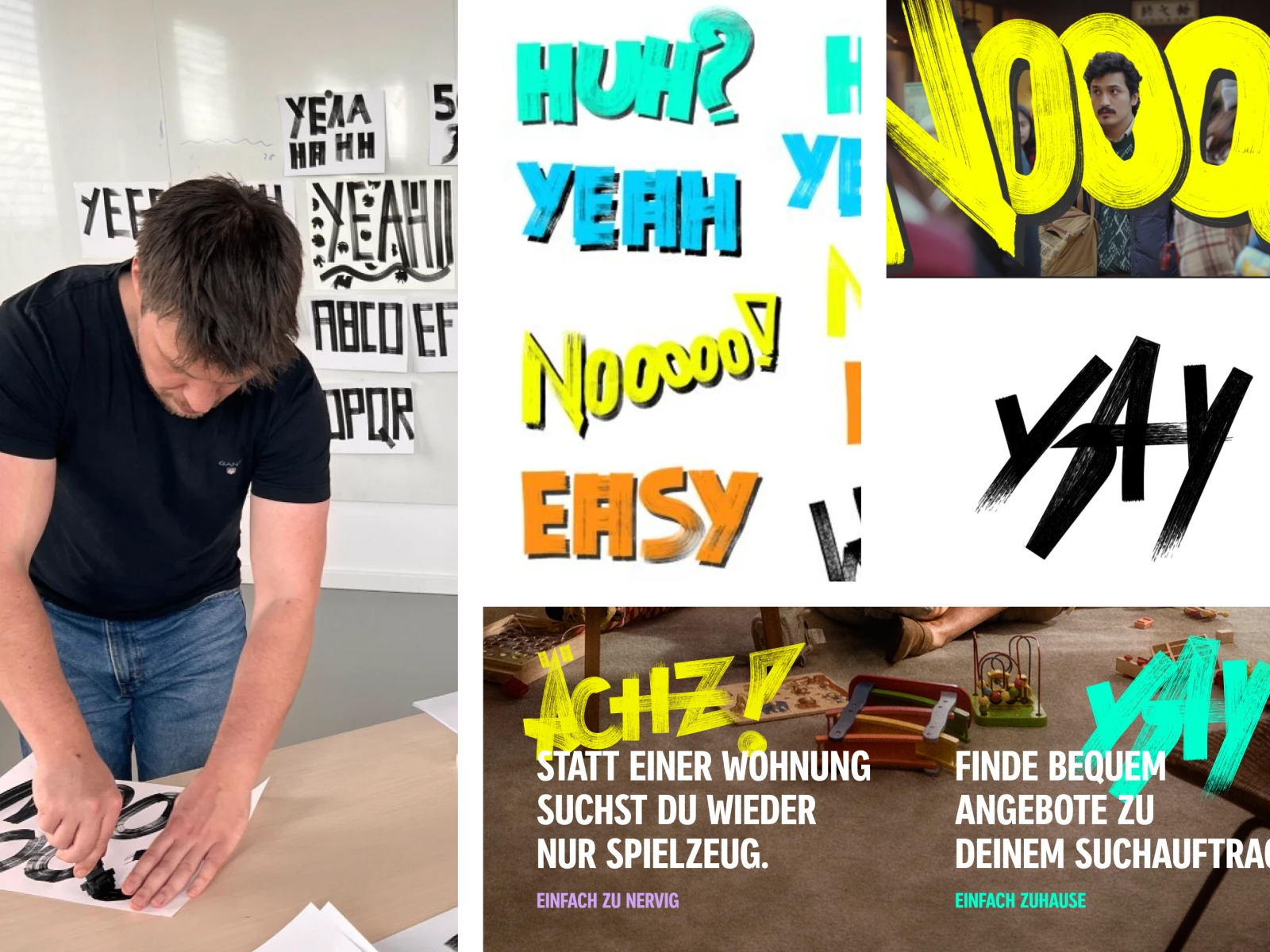
Brush font for campaign by Peter Sijtsma
Brush font for campaign
Created while working @ ImmoScout24
Brand campaign concept by: David + Martin
Collaboration: In partnership with David + Martin
Stakeholders: Brand Studio, Creative Studio, Marketing, Social Media, External Agency (David + Martin)
Role: Lead Designer & Art Director for font creation within ImmoScout24
Objective: Develop a hand-drawn font to be used across digital campaigns, with flexibility for animation in campaign videos.
Process:
Sourced appropriate materials: paper, ink, and brushes.
Sketched the required wordings, exploring a variety of autonomous styles.
Selected the optimal brush tools for the project.
Digitized the hand-drawn elements, converting them into vector format.
Delivered the finalized digital wordings to David + Martin for integration.
Concept: Collaborated on direction by reviewing david+martin prototypes, ensuring alignment with user experience goals.
Design:
Maintained visual consistency throughout the process.
Integrated campaign stills and videos, incorporating essential elements like social media buttons, product links, AppStore links, and newsletter registration.
Deliverables:
Vector-based typography for assets across platforms like Google, Spotify,
YouTube, Meta, and TikTok ads.
Hand-drawn textures converted into Illustrator brushes.
Key visuals for the overarching campaign.
Led font design @ ImmoScout24 w/ David+Martin. Created hand-drawn type for digital use, vectorized assets, ensured UX alignment, and delivered campaign visuals.